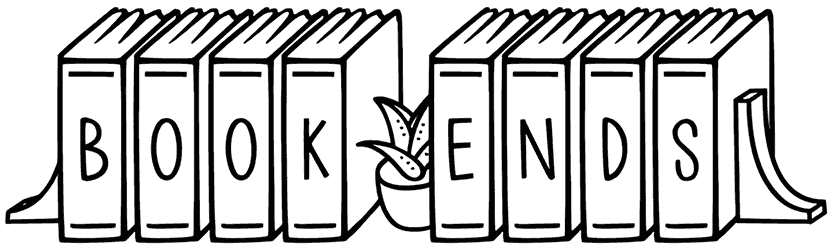
Book Ends Font
Here we are again to introduce you to Book Ends, a decorative font that has a unique style. This fancy font carries a sense of playfulness, innovation, dynamic, and jauntiness, thus grabbing the attention of the audience in the shortest possible time.
Although it doesn’t support lowercase letters and numbers, you can make the best outcome out of this typeface by utilizing it in posters, webpages, brochures, and banners.
Font contains standard alphabet with foreign language support, plus numbers and an ampersand.
Special Characters:
() = bookends
[] = aloe vera bookends
+ = aloe vera between books
space or . or – = book completion
* = aloe vera plant by itself
! = empty connecting book
? = empty completed book